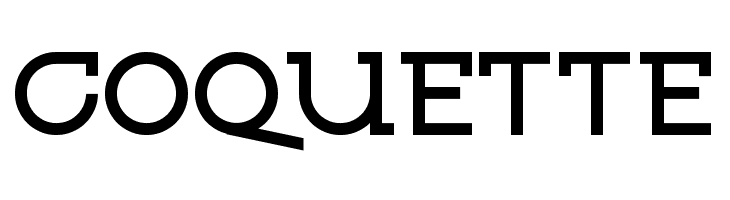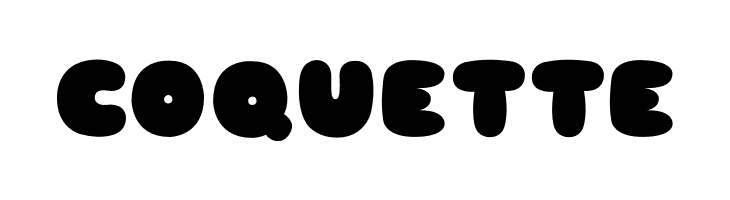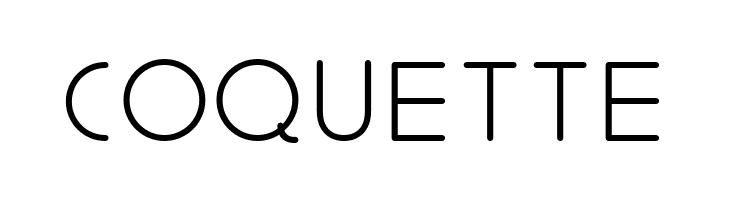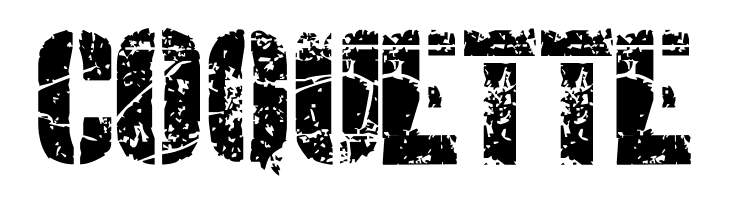
A modern, geometric font with clean lines and rounded edges.
A playful, bold font with rounded, bubbly characters.
A playful, rounded font with smooth curves and a friendly appearance.
A playful, bold font with rounded, bubbly characters perfect for fun and whimsical designs.
A playful, bold font with rounded, bubbly characters ideal for fun designs.
A bold, distressed font with a grunge texture and tight spacing.
A bold, hand-drawn font with a playful, sketch-like appearance.